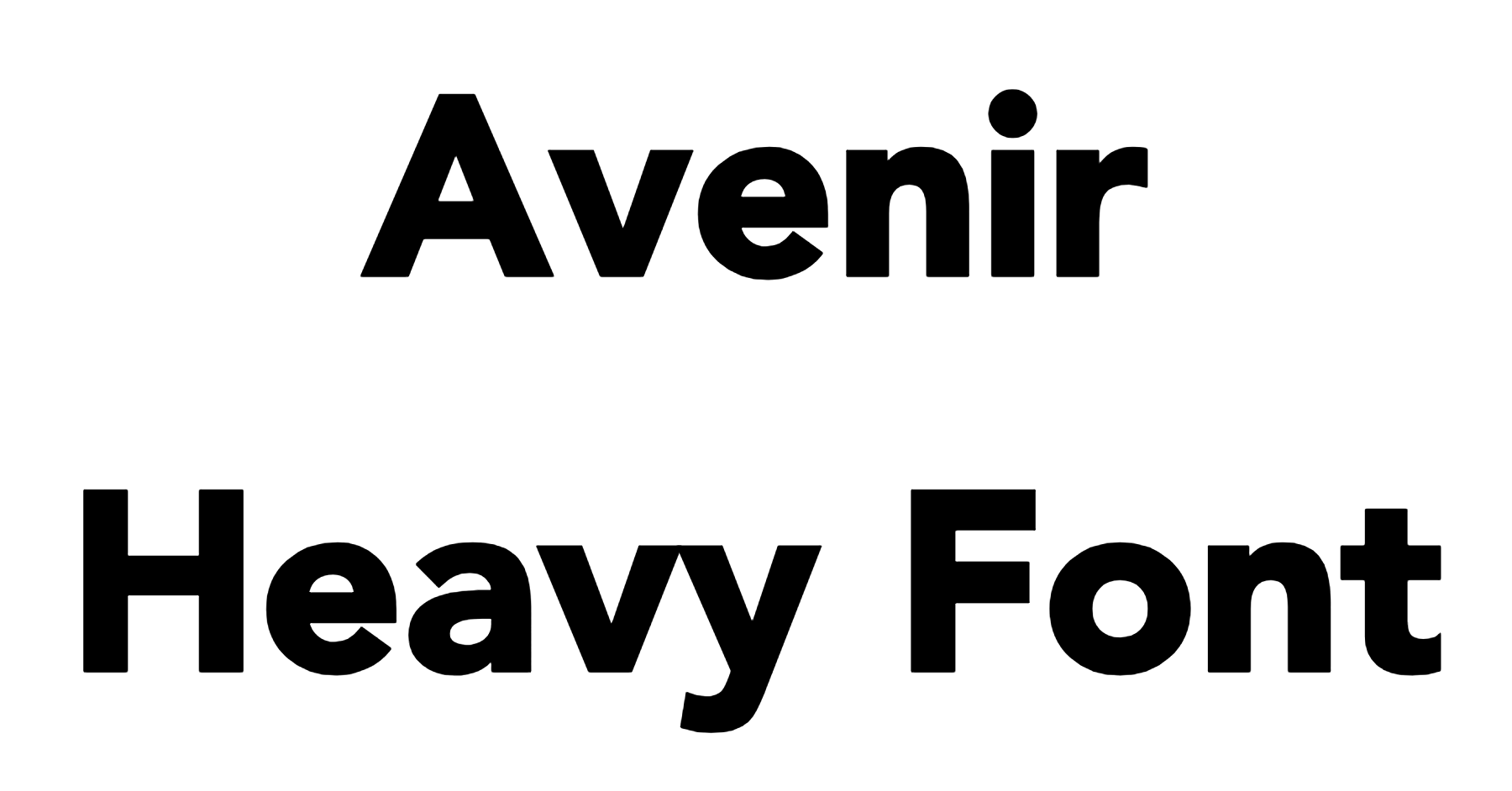
Avenir Heavy Font
Avenir Heavy
- Designer: Nadine Chahine and Adrian Frutiger
- Publisher: Monotype GmbH
- Languages: English, Spanish, French, German, Portuguese and Italian, plus Arabic characters
What You Can Type With Avenir Heavy
You get every letter from A to Z in both cases and all the numbers from 0 to 9, which means Avenir Heavy can handle full sentences, dates and prices. Everyday marks like &, !, ? and @ are there too. Thanks to its accented letters, it also works for Spanish, French, German, Portuguese and Italian, not just English. On top of that, it includes Arabic characters.
Where Avenir Heavy Works Best
Avenir Heavy is a natural fit for websites, app screens and clean logos. It works for headings and body text alike. If the download has several weights, use a heavier one for titles and a lighter one for paragraphs.
Does Avenir Heavy support accented letters?
Yes. Avenir Heavy includes the accented letters needed for Spanish, French, German, Portuguese and Italian, so it works for more than just English.